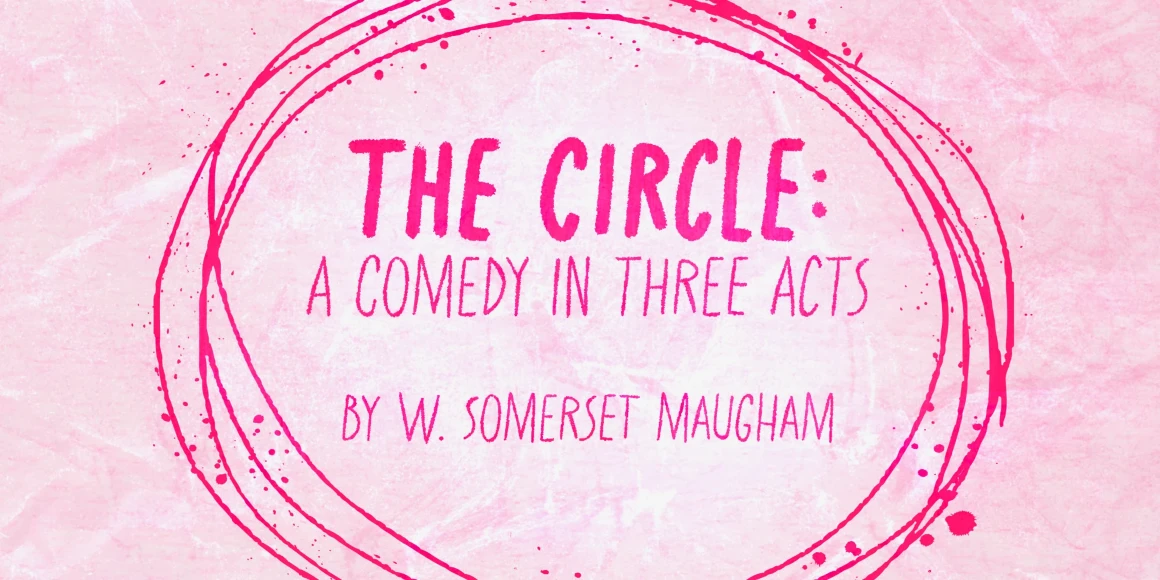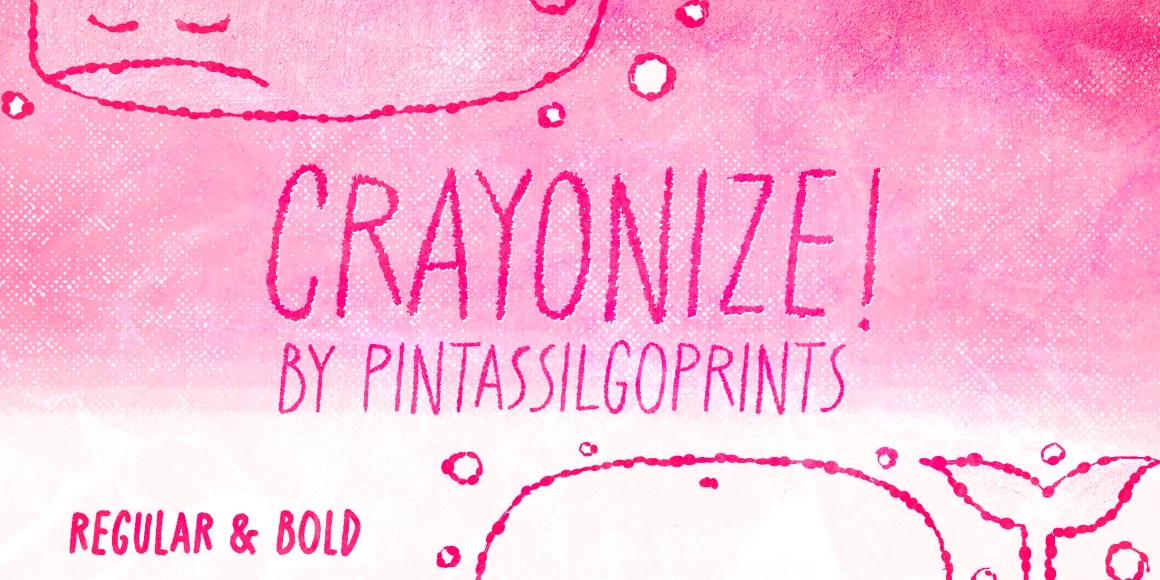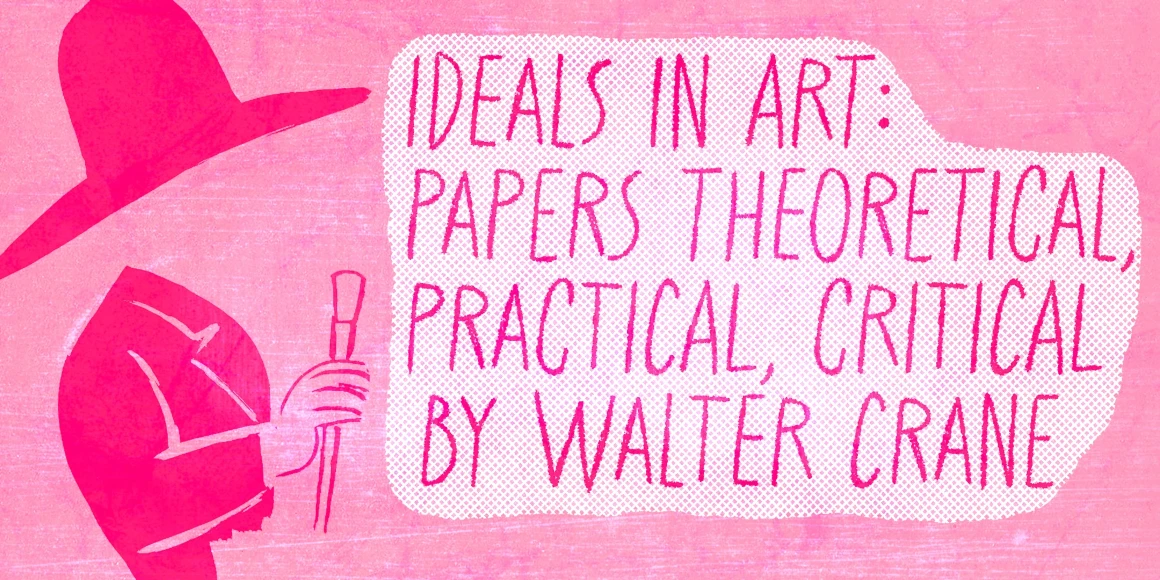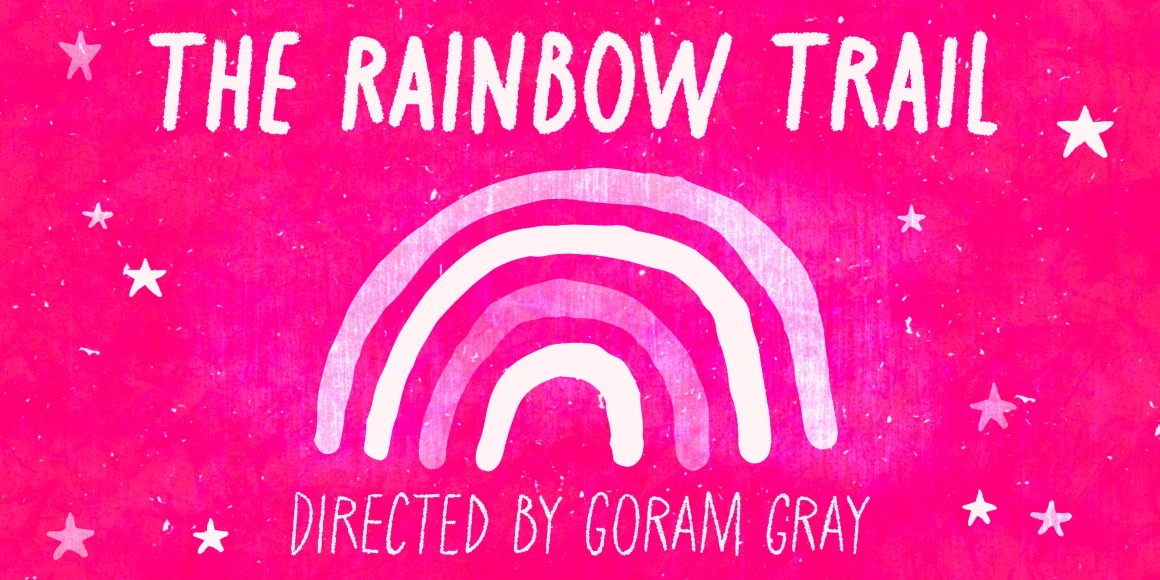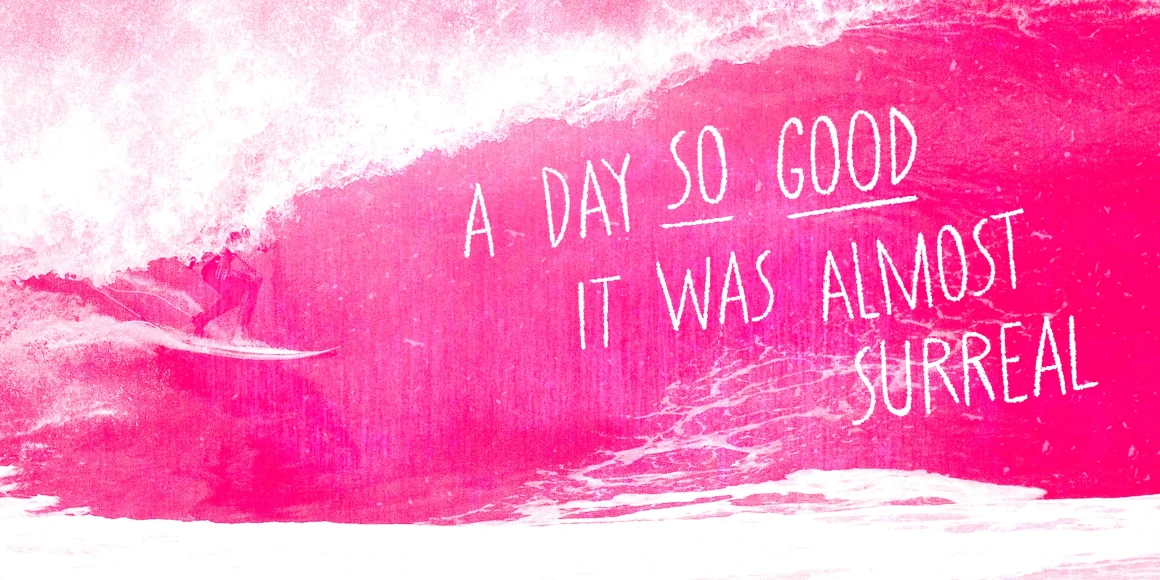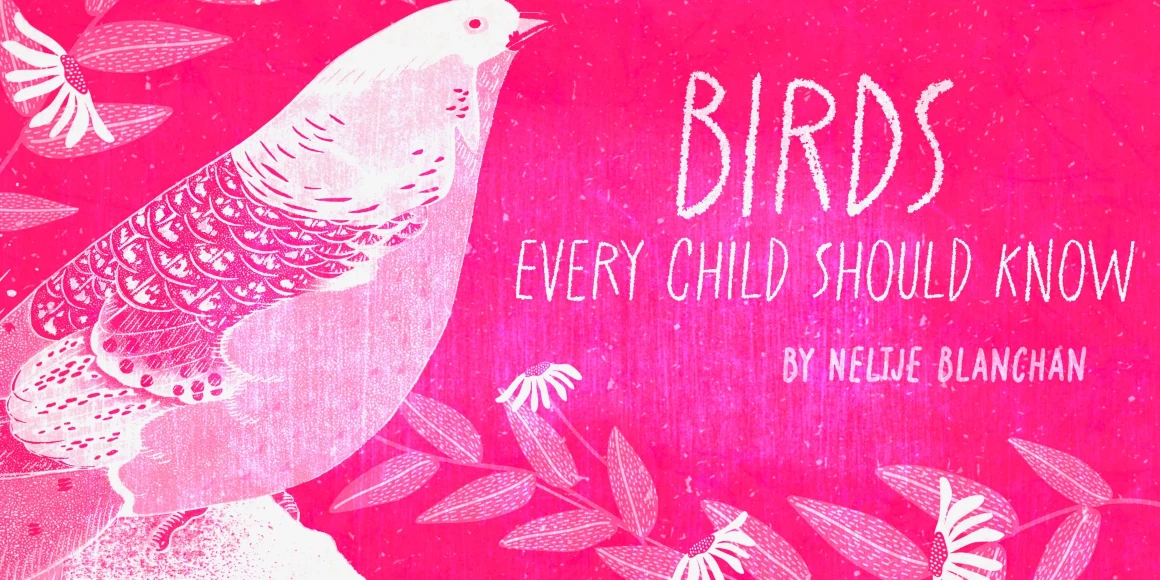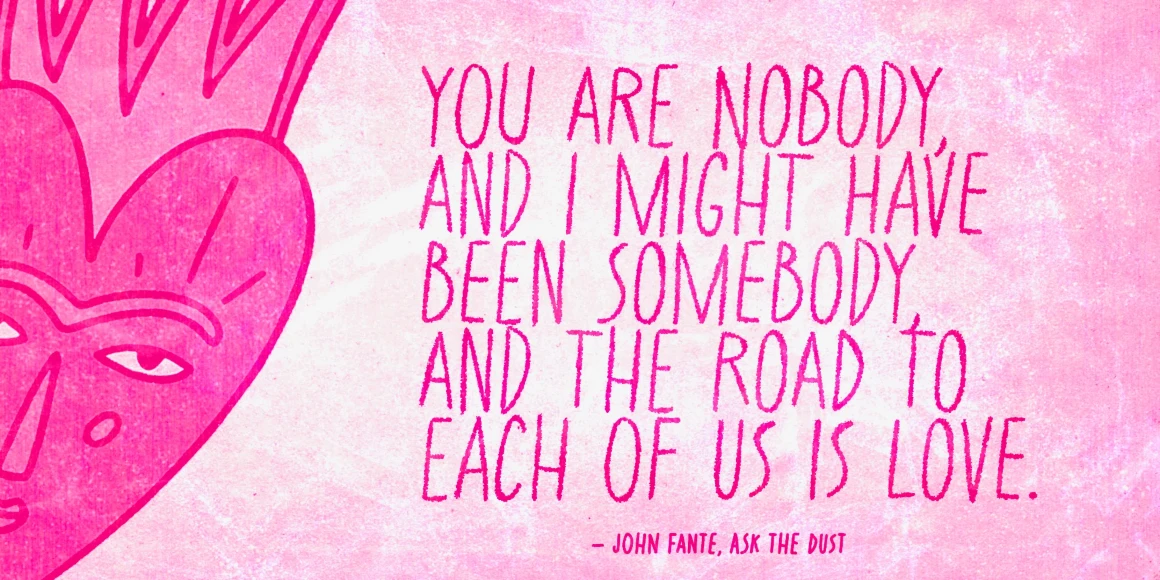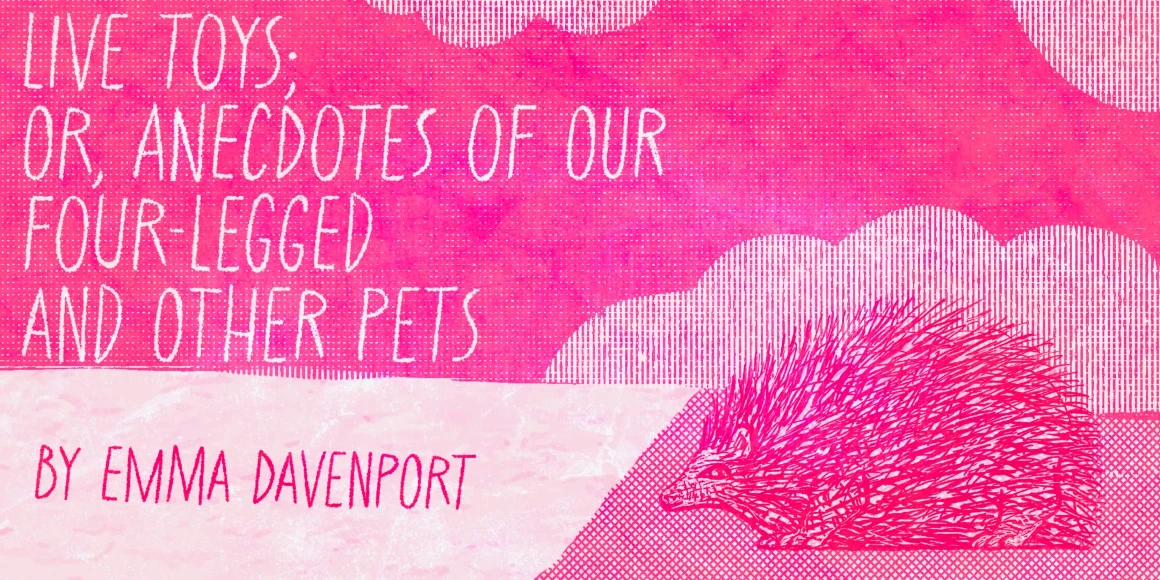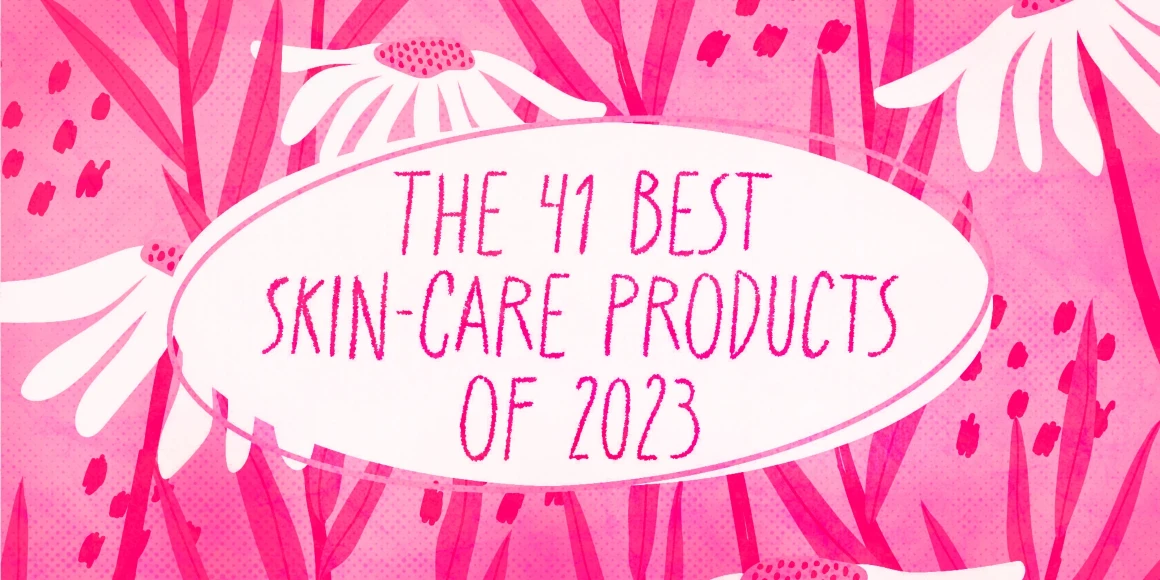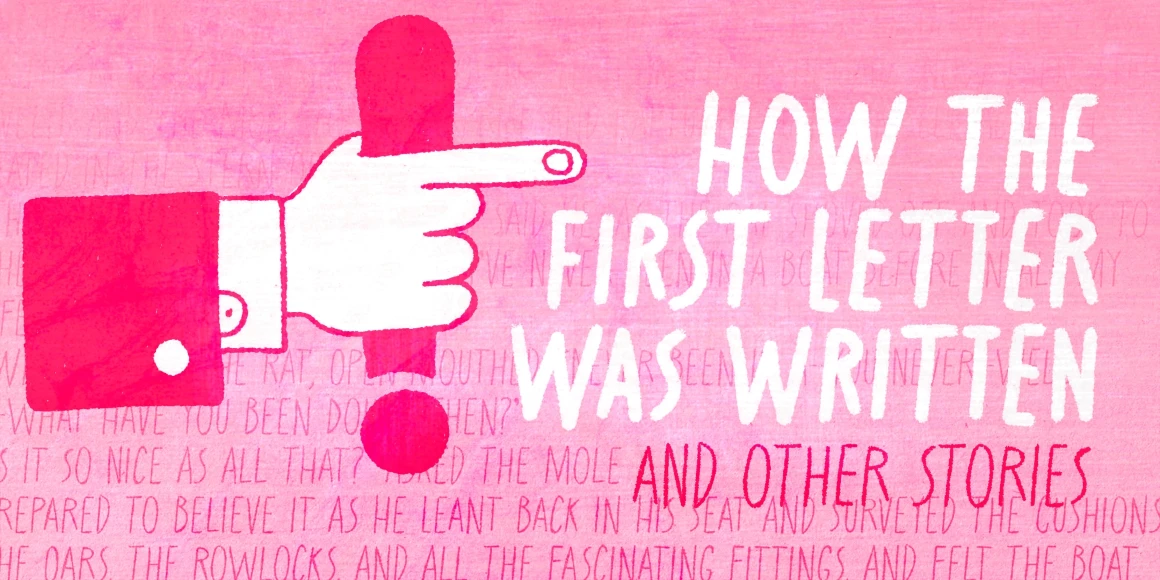
Crayonize
Crayonize Regular
Crayonize Bold
Crayonize is a casual, handwritten typeface with a fresh, crayon-like look. Available in two weights, this all-caps font family offers two options for each letter and number, creating a natural, organic, and hand-lettered feel. Crayonize is excellent for display purposes such as packaging, books, apparel, greeting cards, and opening titles. Give it a try, have fun, and keep on creating!